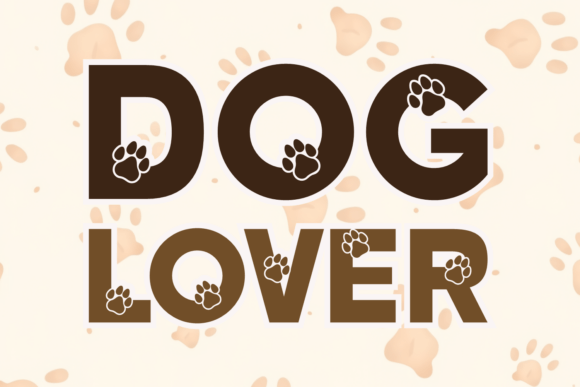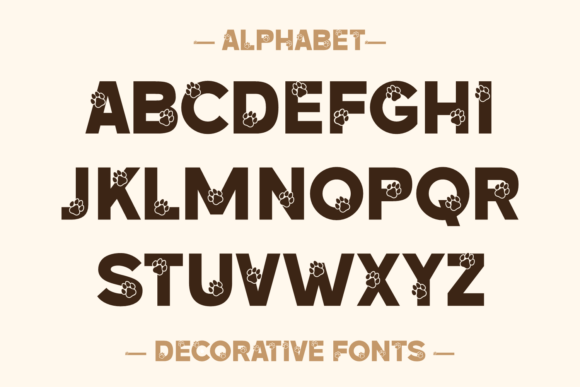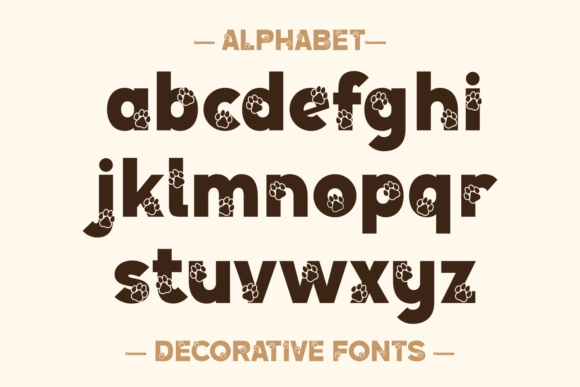
Introduction to Loves Puppy Font
As a designer, have you ever struggled to find the perfect font for a creative project that embodies the joy and playfulness of a child’s imagination? I’m sure you have. The search for that one-of-a-kind design resource can be overwhelming, especially when you’re looking for something that truly stands out. But what if I told you that there’s a font that combines the essence of playful animal paws and delightful kids’ illustrations, making it a must-have for any designer looking to add a touch of whimsy to their work?
Enter the Loves Puppy Font, a high-quality, multi-lingual font that’s perfect for designers seeking a unique and eye-catching design element. With its clean lines and distinctive form, this font is sure to bring a smile to anyone’s face. Whether you’re working on a greeting card, magazine, or book cover, the Loves Puppy Font is the perfect addition to your design arsenal.
Honest Review: Loves Puppy Font
As a designer, I’m always on the lookout for unique and high-quality fonts to elevate my creative projects. Loves Puppy Font is one such find that caught my attention with its adorable design.
What works well with Loves Puppy Font is its cutesy aesthetic, making it perfect for kid-friendly projects or designs that need a playful touch. The font comes in a variety of styles, from bold to script, giving designers ample options to choose from. Additionally, the font is available for free download, which is a bonus for designers on a budget.
The font also boasts a transparent background, making it easy to integrate into various design resources and backgrounds. However, I did find some limitations when using the font for larger text sizes, as it can become pixelated.
What I like: ✨ Cute and playful design ✨ Variety of styles ✨ Free download
Limitations: ⚠️ Pixelation issues with larger text sizes ⚠️ Limited flexibility in customizing the font
Overall, Loves Puppy Font is a great addition to any designer’s toolkit, especially for projects that require a lighthearted and whimsical touch. However, be mindful of its limitations when using it for larger text sizes.
- Perfect for kid-friendly projects or playful designs
- Available in various styles, including bold and script
Design Tips
To get the most out of Loves Puppy Font, use it on a transparent background to make your design stand out. You can also pair it with other fonts to create a unique and creative look.
Loves Puppy Font is perfect for designing:
- Children’s party invitations
- Pet-themed merchandise
- Fun and playful social media graphics